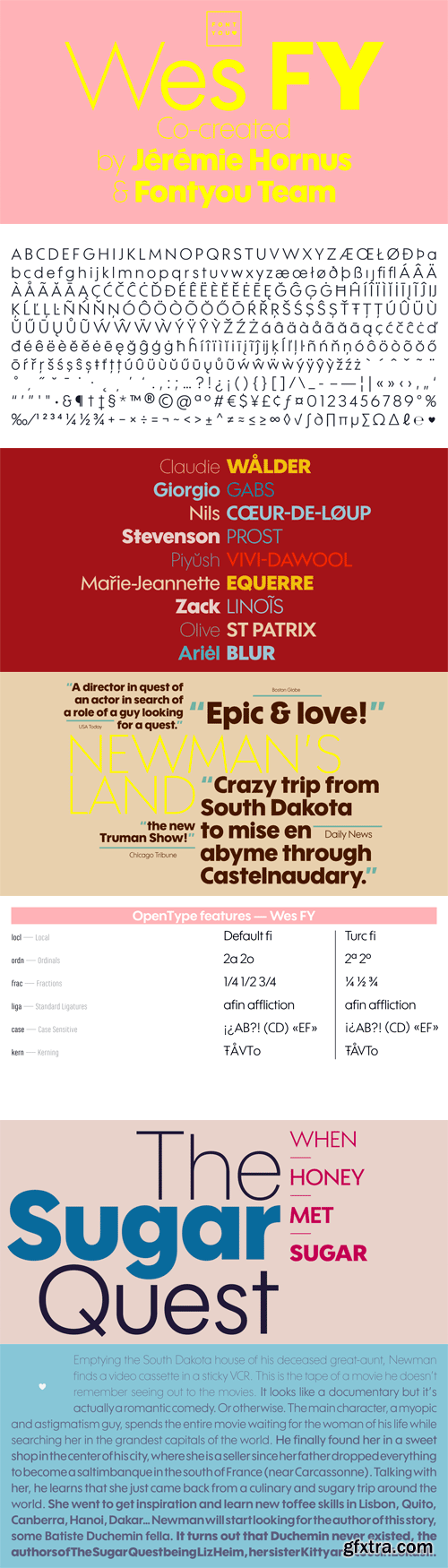
Wes FY Font Family
If you’re searching for a new sans-serif, here is Wes FY! This font is a modern geometric grotesk reminding of Paul Renner’s Futura. It has a large x-height and tight letter-spacing, and comes in five weights from Thin to Black. While the extremes are definitely intended to large sizes usage, the intermediate weights will be well suited to text setting at smaller sizes.